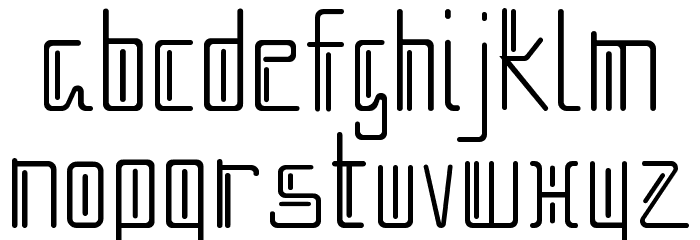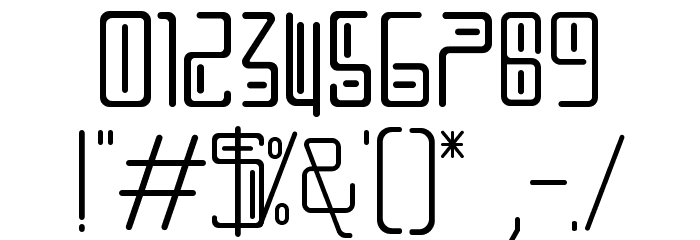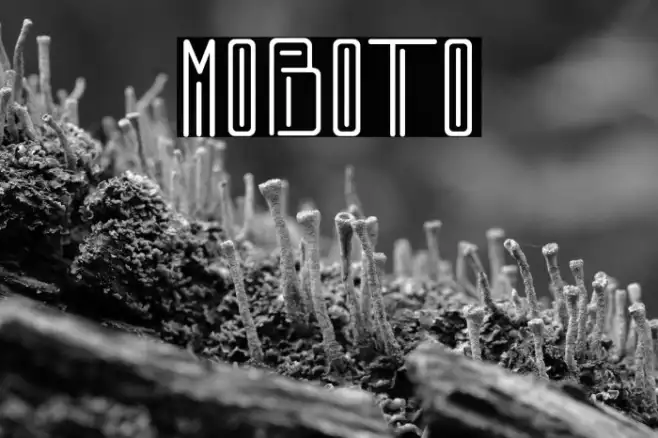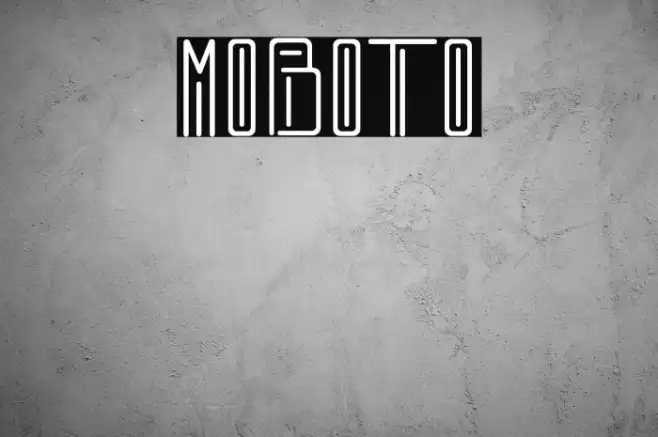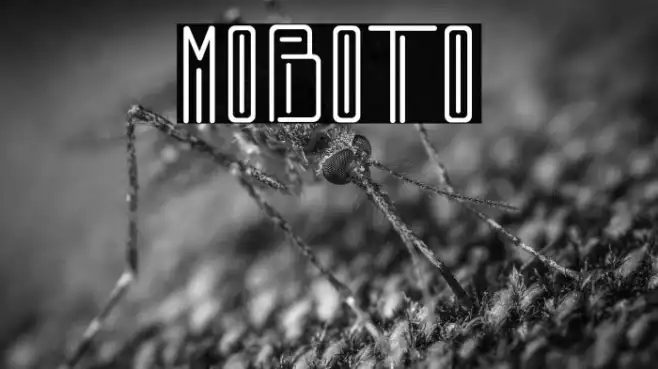
MOBOTO Font
This font features a modern, geometric design with a futuristic flair. The characters are constructed with clean, straight lines and rounded corners, giving them a sleek and contemporary appearance. The uppercase letters are tall and narrow, while the lowercase letters maintain a consistent height, creating a uniform look. The numerals are distinct and easy to read, with a similar geometric style. Special characters are integrated seamlessly, maintaining the overall aesthetic. This font's unique design makes it suitable for projects that require a modern and innovative touch.
A modern, geometric font with a futuristic and sleek design.
- Font: MOBOTO
- Proposed Projects: Ideal for technology branding, modern posters, futuristic designs, and digital interfaces.
- Category: Modern
- Overall Style: Futuristic
- Use Case: Headlines, Logos, Digital interfaces